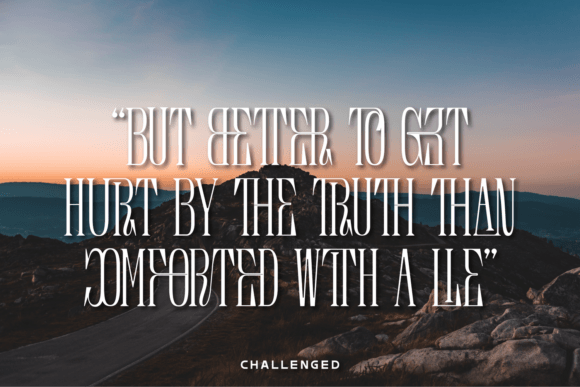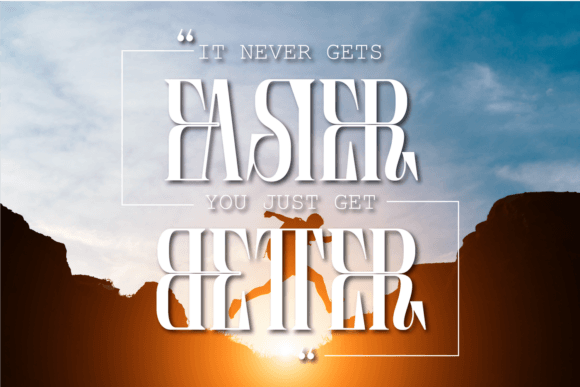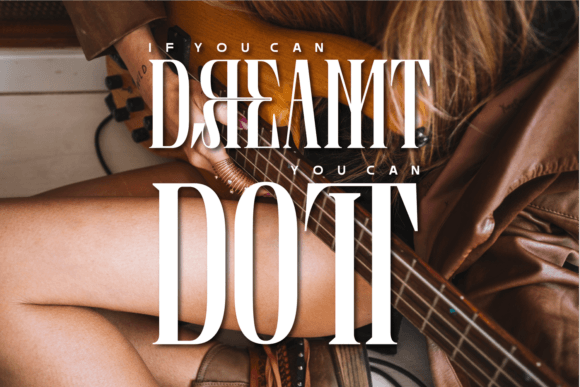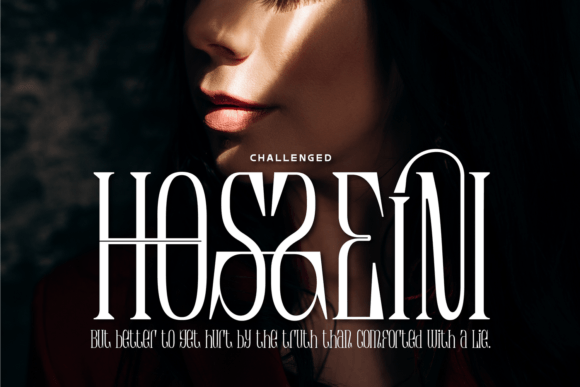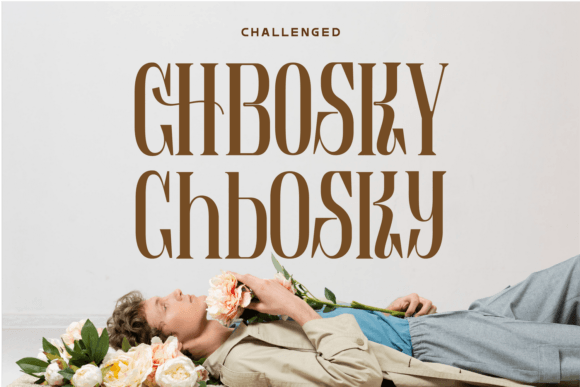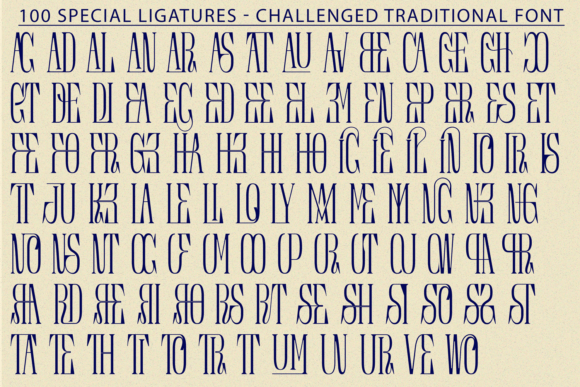
Embracing Elegance: The Rise of Challenged Traditional Font
As a designer, there’s no greater joy than bringing a creative idea to life. You’ve spent hours pouring over sketches, experimenting with colors, and refining every detail. And then, it happens – the perfect font choice that elevates your entire design. For many, that perfect font is the Challenged Traditional Font, a modern display serif font that embodies elegance and sophistication.
This beautiful font is designed to add a touch of refinement to any creative endeavor. From logos to branding, magazine covers to display titles, the Challenged Traditional Font is the perfect choice for designers looking to create a lasting impression. Its delicate curves and refined details make it a valuable asset for any design project, allowing you to convey a sense of luxury and style that’s hard to resist.
Challenged Traditional Font Key Features
- Font Family: A unique blend of traditional and modern typography, offering 6 font styles.
- Unique Characteristics: Features a distinctive blend of serif and sans-serif elements, creating a visually appealing and readable font.
Designer Review: Challenged Traditional Font
When I first laid eyes on Challenged Traditional Font, I was intrigued by its unique blend of classic and modern elements. ✨ The font’s versatility shines through in its ability to adapt to various text styles and formats, from headings to body copy.
Here are some of the things that really stand out:
- ✨ The font’s bold and italic styles are particularly well-executed, adding a touch of sophistication to any design.
- ✨ The font’s legibility is top-notch, making it an excellent choice for long blocks of text.
- ✨ The font’s flexibility in terms of font sizes and line heights is impressive, allowing designers to create visually appealing compositions.
- ⚠️ The font may not be suitable for very small text sizes, as the letterforms can become slightly fuzzy.
- ⚠️ The font’s default kerning may require some adjustment, especially for certain combinations of letters.
Overall, I’d say that Challenged Traditional Font is a solid choice for designers looking to add some visual interest to their projects. While it may not be perfect, its strengths outweigh its weaknesses, making it a worthwhile addition to any font collection.
For best results, use Challenged Traditional Font for headings and titles to add a touch of uniqueness to your designs. It’s also suitable for creative and artistic projects where a non-traditional font can enhance the overall aesthetic. Use it sparingly to avoid overwhelming the viewer.